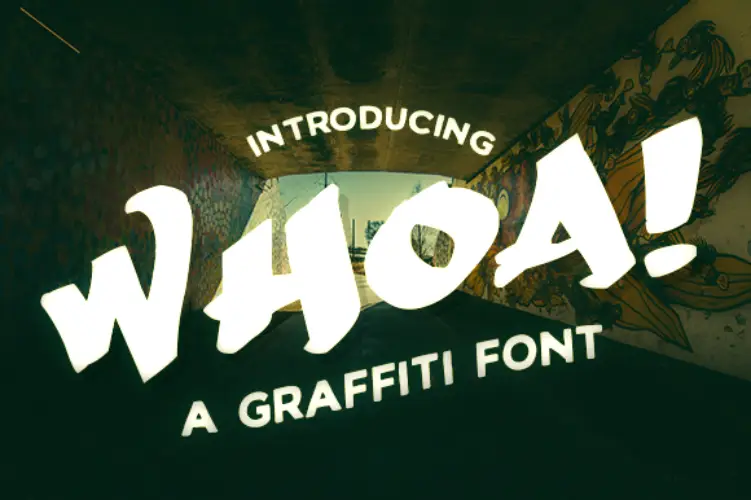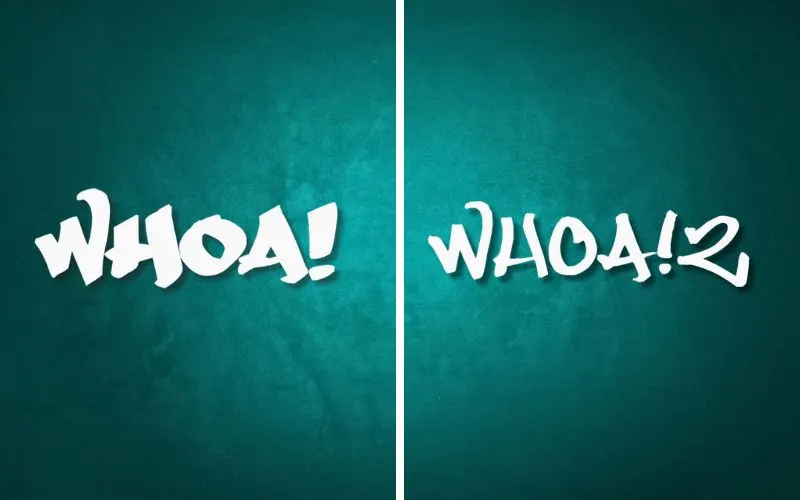
” Whoa Font ” isn’t just a font; it’s a digital product that spun off from, and pays homage to, a big cultural thing: the Whoa.nu community.
That’s Whoa!. It’s not a fancy, perfect font. It’s a digital spray can created by a Swedish designer named Johan Waldenström in 2008. He made it for a hip-hop website called Whoa.nu (think of it like a secret club for rap fans and street artists). His goal? To fight back against boring, corporate fonts (like Arial or Times New Roman) and give the internet something that felt real, like art, not a computer.
Whoa Font
| OriginalThe community itself, Whoa.nu, started in 2000 as a central online forum and meeting spot for Swedish hip-hop fans. Before social media was ubiquitous, it was a crucial platform where artists, fans, and critics could come together. It was built to be a hub for:
- Music and Albums: Whoa.nu was a key spot for new artists to drop free albums and songs, helping their work get out to a huge audience.
- Discussion and Culture: It was a forum for deep talks about every part of hip-hop, from lyrics and beats to fashion and events.
- Education and Development: The site acted as a learning space where people could better understand hip-hop, share ideas, and sharpen their skills.
- Events: It was used to organize and promote hip-hop events, parties, and concerts, bringing the online community into the real world.
Because of this, the community covered a lot of media tied to hip-hop, like music (albums, songs), events, and the digital forum itself.
Parts, Editions, and Versions
The Whoa! font has a few different forms, which shows how popular it is and how much it’s still being used.
- Whoa! (Original): This is the first version, released in 2006, with its classic “fat tagging” or “bubble” style.
- Whoa! 2: A second version of the font was later put out by Waldenstrom, likely because the first one was so successful. It offered new takes on the style. This proves the font isn’t just a one-off thing, but a series of designs. More parts or editions could definitely be made in the future, since new versions have already come out.
Conclusion